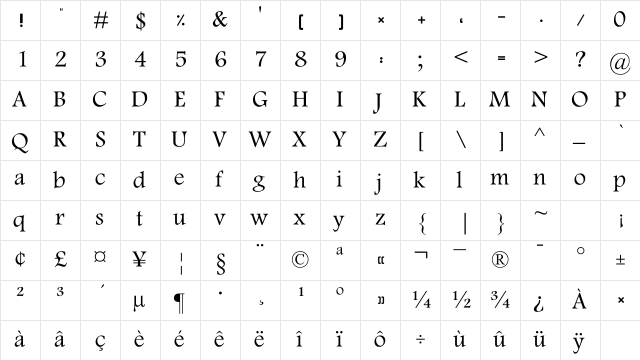
Design Context for K Elham Typeface
K Elham offers clean, dependable letterforms without strong stylistic allegiance, making it a practical choice for designers who need flexibility.